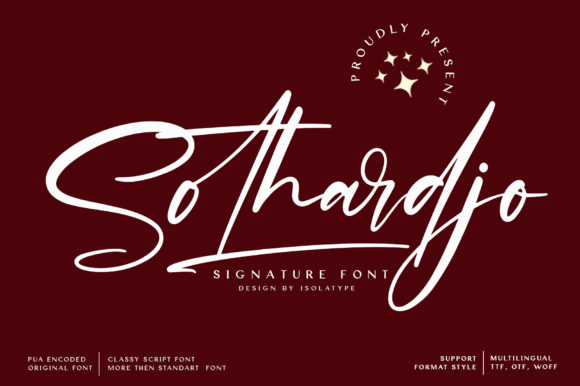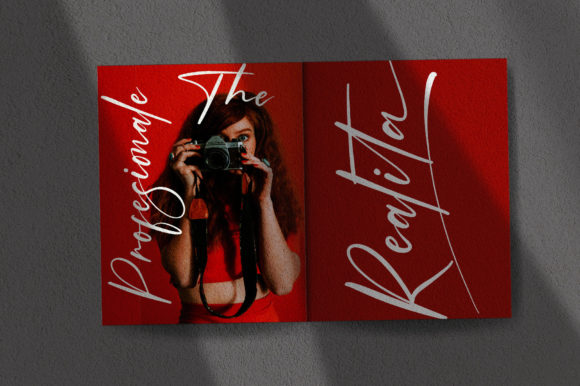
About Sothardjo Font
Sothardjo is a delicate, elegant and flowing handwritten font. It has beautiful and well balanced characters and as a result, it matches a wide pool of designs. Sothardjo is PUA encoded which means you can access all of the glyphs and swashes with ease!Â